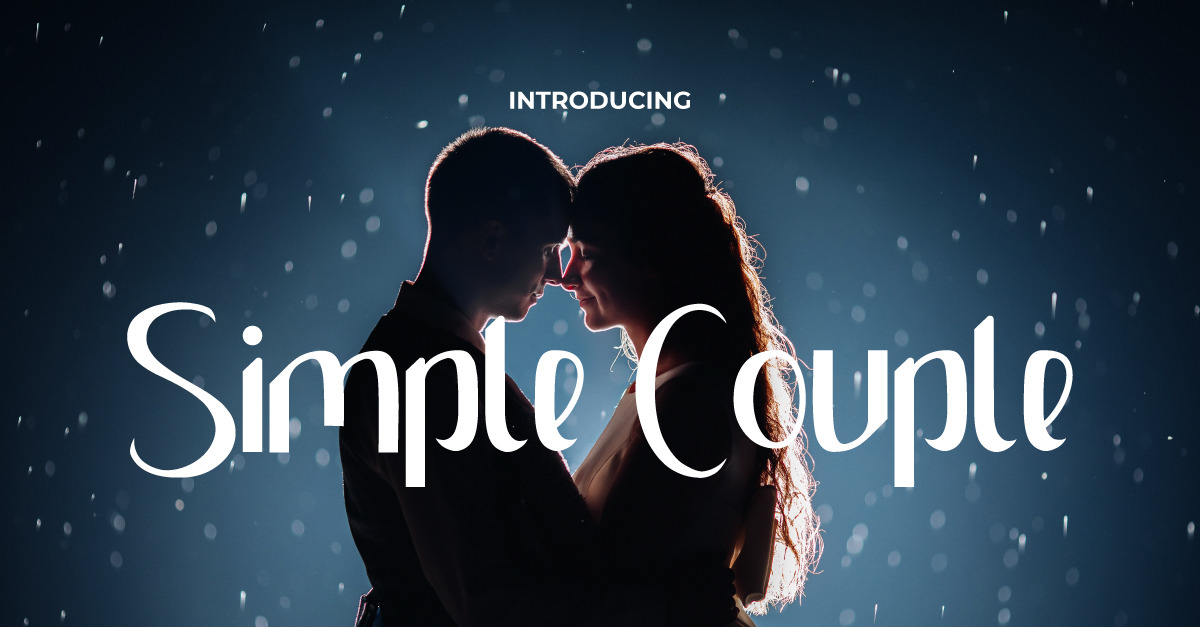
Simple Couple Sans Serif Display Font
Simple Couple Font is a sans serif display font. This font will be perfect for logo branding, lettering, products packaging, signage, title etc. This font uses a simple but attractive brush. There are many industries suitable for this font, such as: boutique, wedding, writers and who need a simple, clean and unique style